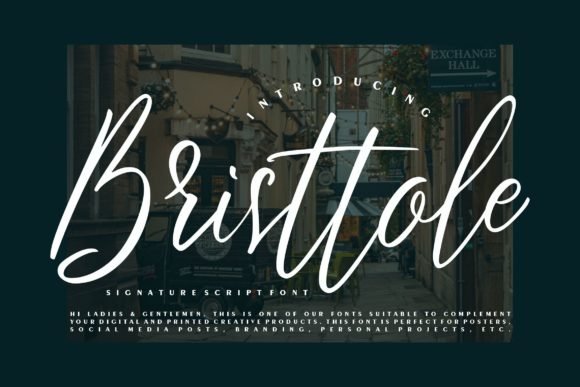
Have you ever stared at a blank canvas, struggling to find the perfect font to bring your design to life? You’re not alone. We’ve all been there, searching for that elusive combination of style and elegance that elevates our work from good to great. And then, like a breath of fresh air, you stumble upon the Bristtole Script Font.
This lovely script font is specifically designed for those who crave a beautiful and refreshing look in their designs. With its delicate and refined strokes, the Bristtole Script Font adds a touch of sophistication and class to any project. Whether you’re working on a wedding invitation, a branding campaign, or a simple greeting card, this font is sure to make your designs stand out.
For designers, the Bristtole Script Font is a valuable asset in their toolkit. Its versatility and elegance make it a go-to choice for a wide range of projects, and its beauty is sure to impress clients and audiences alike.
Bristol Script Font Key Features
- Unique Characteristics: Bristol Script Font features a distinctive, elegant script style with subtle flair and connection between letters, making it ideal for creative and professional applications.
Bristtole Script Font Review
Overall, I was really excited to dive into the Bristtole Script Font. I love a good script font, and this one promised to deliver on that front. ✨ The font’s unique, flowing lines and elegant feel really caught my eye. It’s perfect for adding a touch of sophistication to any project.
One of the things I appreciate most about Bristtole Script is its versatility. ✨ It can be used for everything from wedding invitations to logos and even product packaging. The font is highly legible, even at smaller sizes, which is a major plus.
Overall, I’d say the Bristtole Script Font is a solid choice for designers looking to add some flair to their projects. While it’s not without its limitations, the font’s unique style and versatility make it a great option for a wide range of applications.